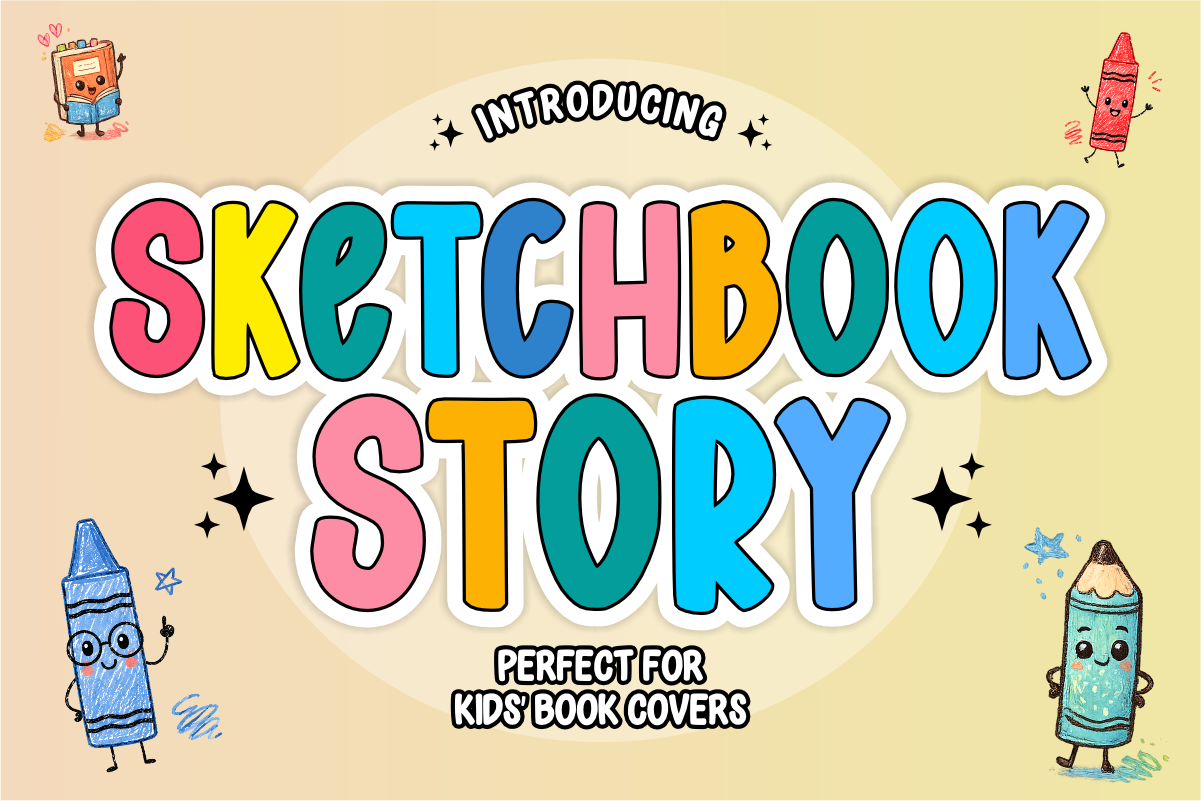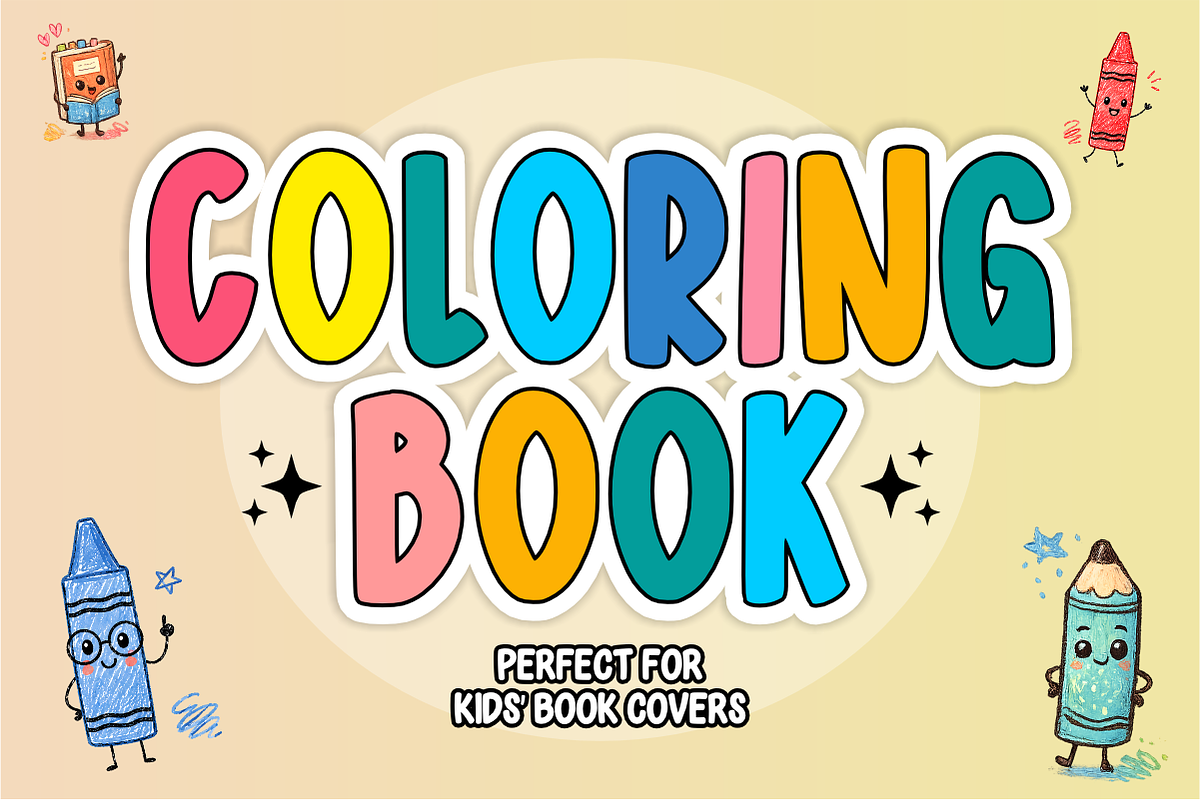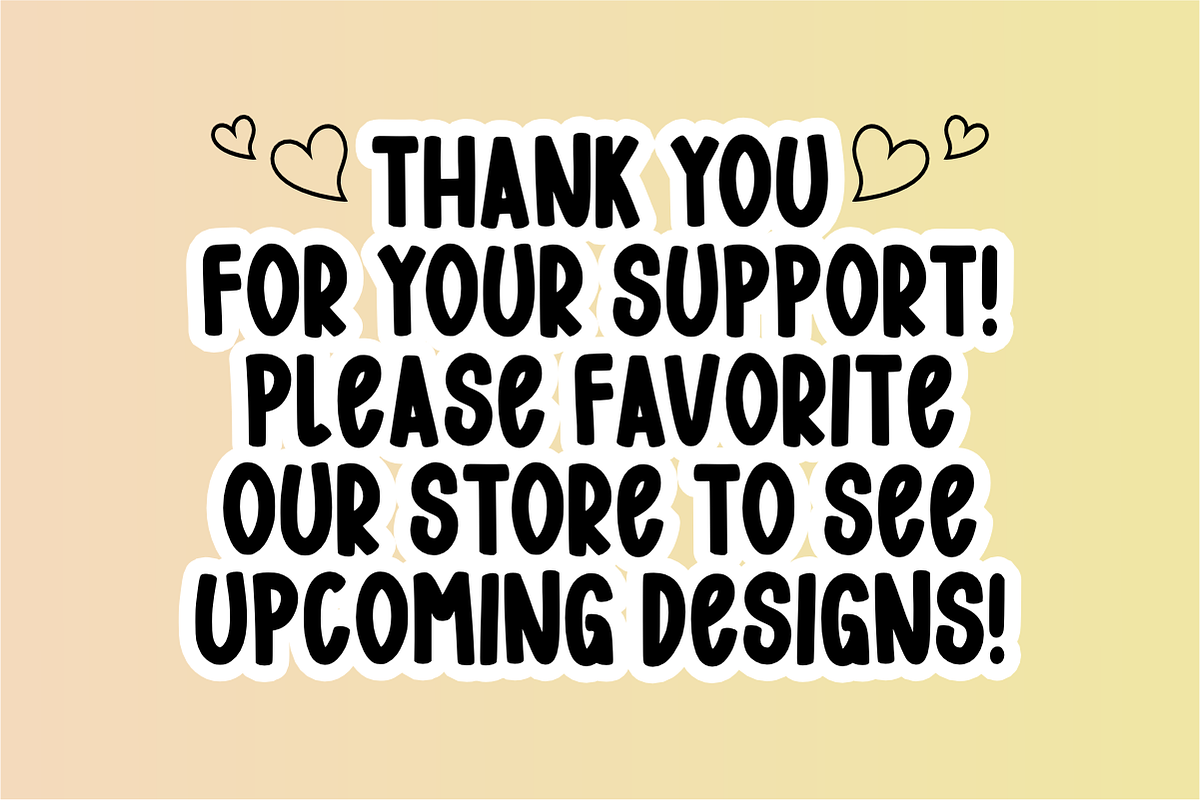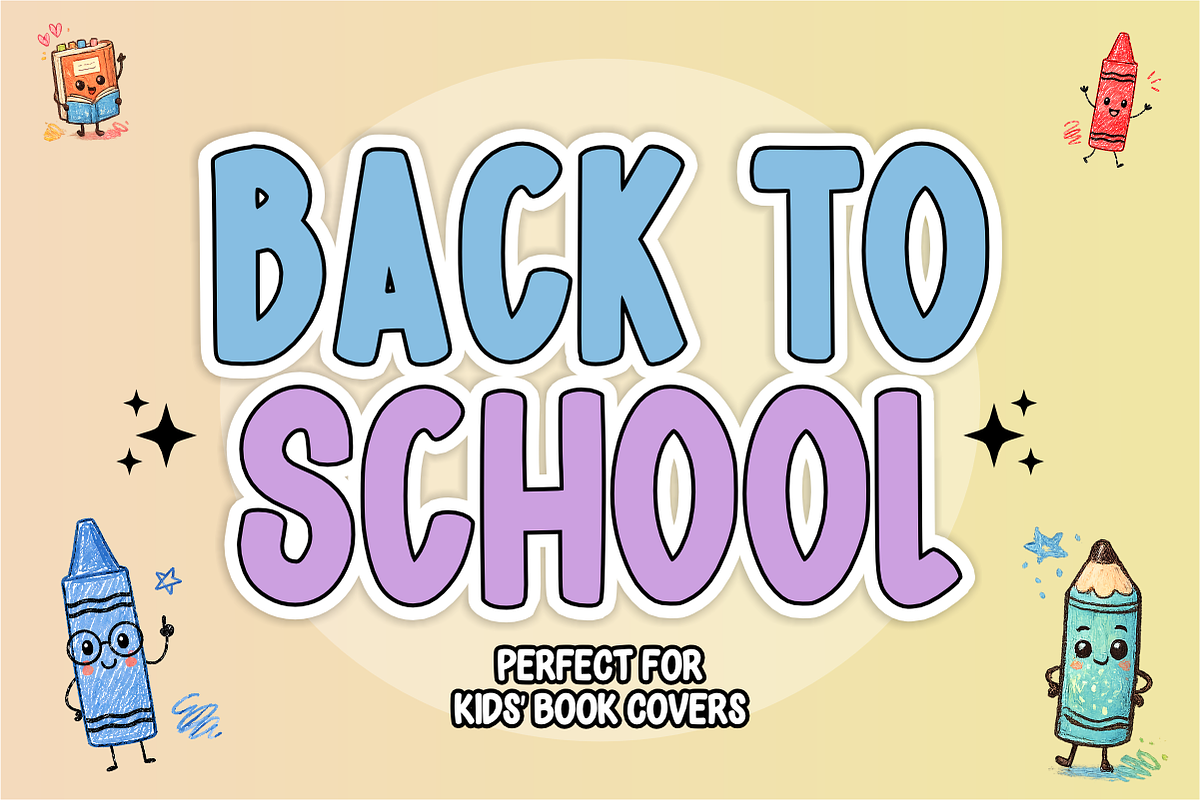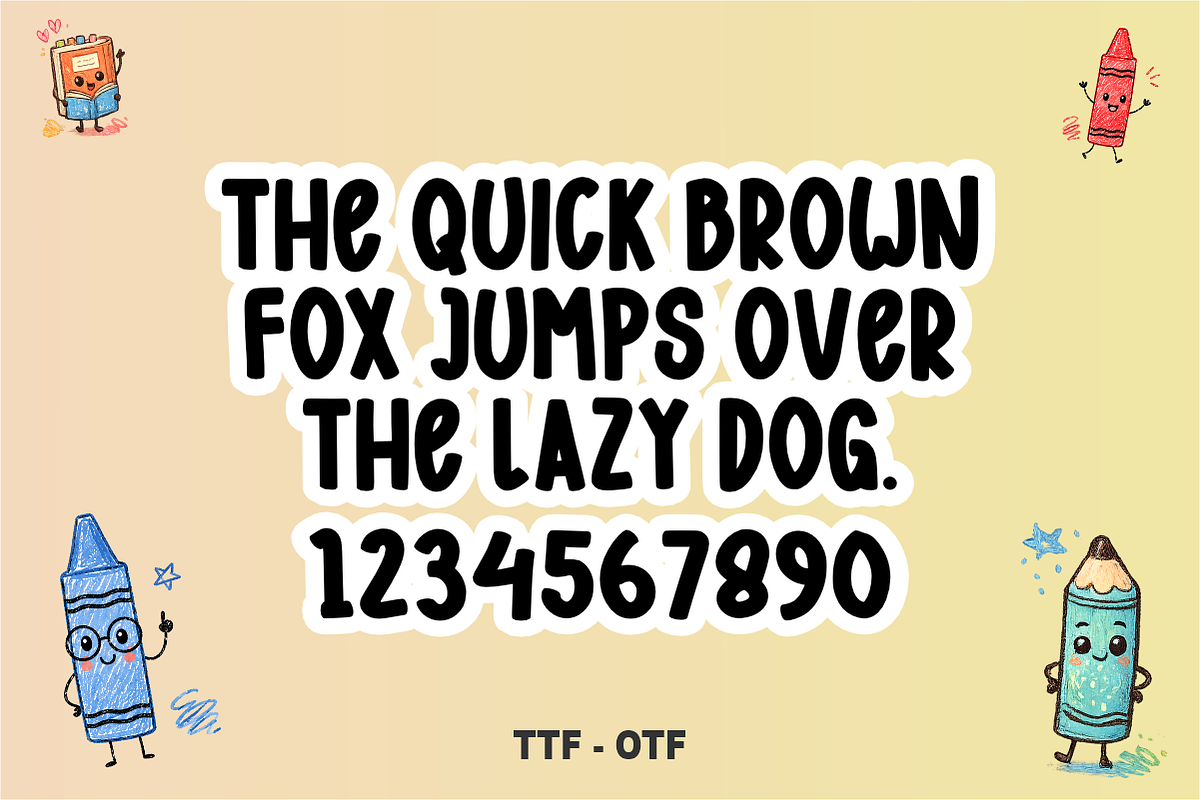
Sketchbook Story-Kids Storybook Font
Sketchbook Story - Kids Storybook Font
Sketchbook Story is a playful, hand-drawn display font featuring tall, rounded letterforms filled with whimsical storybook warmth and crayon-journal charm. Specially designed for children's literature, classroom materials, and cute crafts, this delightful font turns every title into an enchanting visual tale. Every character is cleanly vectorized to guarantee high-resolution prints and smooth, effortless cutting on Cricut and Silhouette machines.